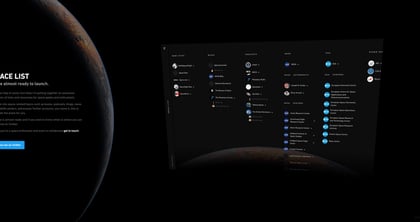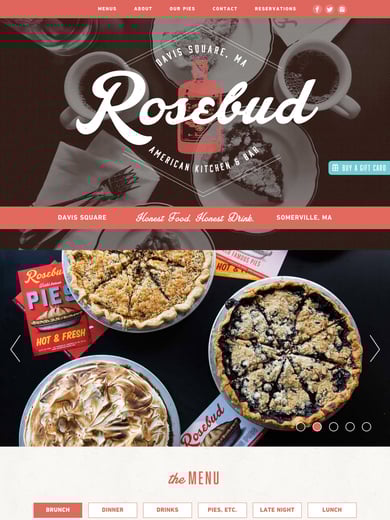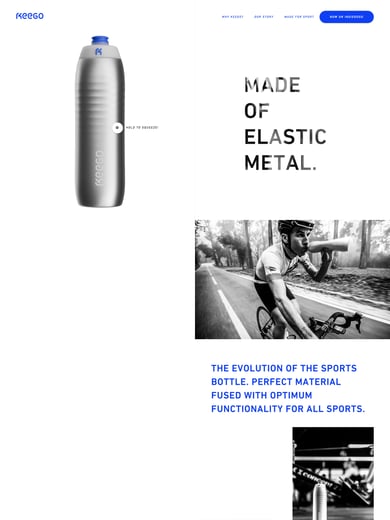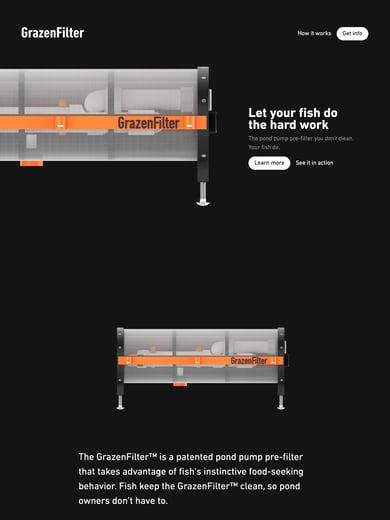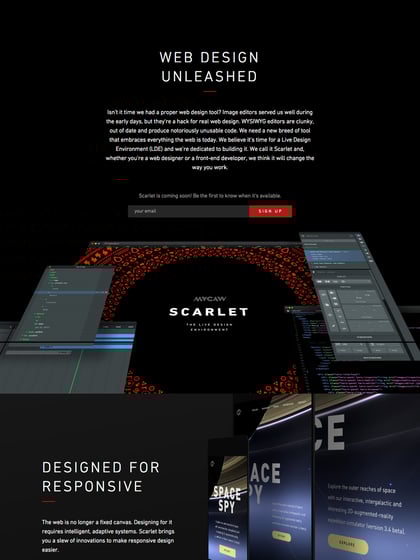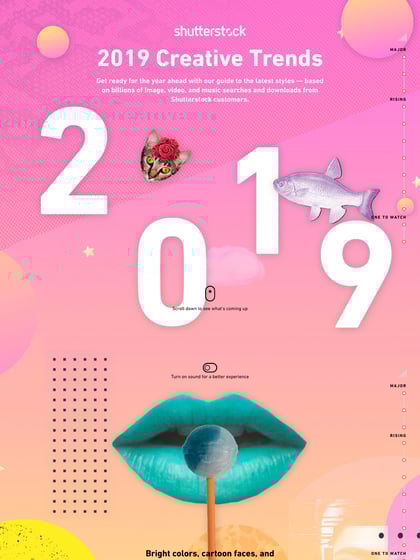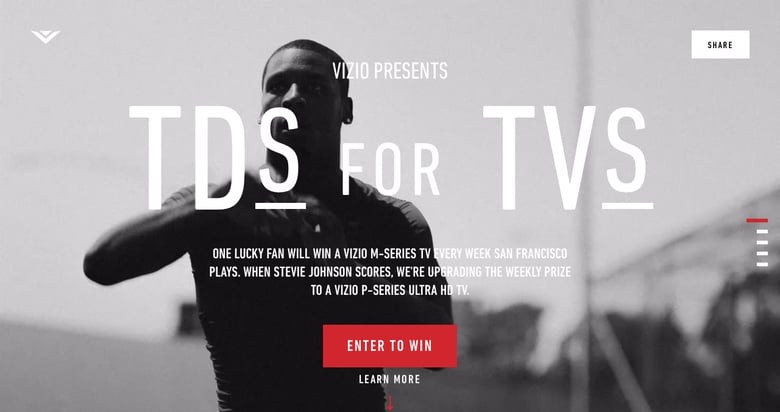
DIN Next
DIN Next expands the industrial DIN direction with a broader set of weights and widths. Subtle rounding softens the original’s squared corners. Small capitals and several numeral options make its practical details worth checking for information-heavy website layouts.